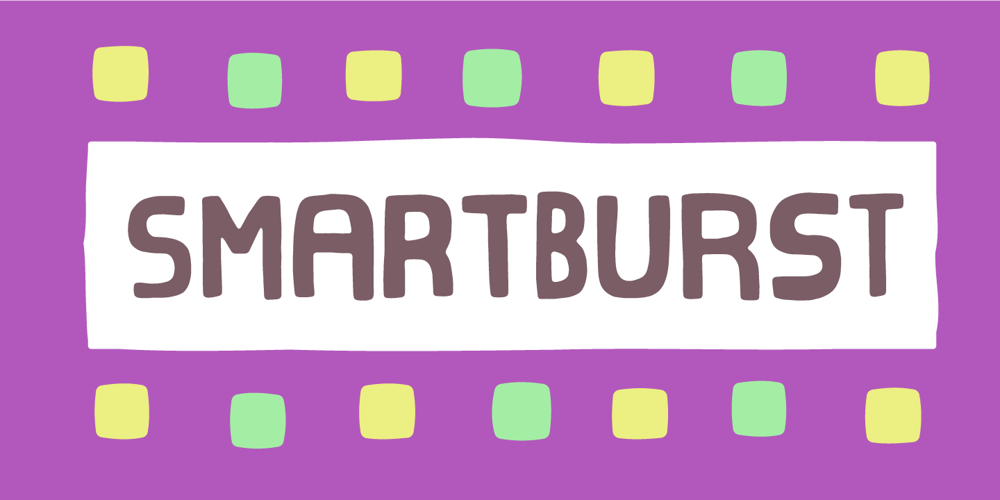
Smartburst Font Family was designed by Jakob Fischer and published by Bogstav. Smartburst contains 2 styles and family package options. Are you throwing a party, growing eco friendly potatoes or having a babyshower?Is so – go ahead and give Smartburst a try for the design. The friendly and rounded edges makes the letters look soft and legible.I’ve added 5 different versions of each letter, and they automatically cycle as you type. Or, you can choose them individually from the glyph menu.